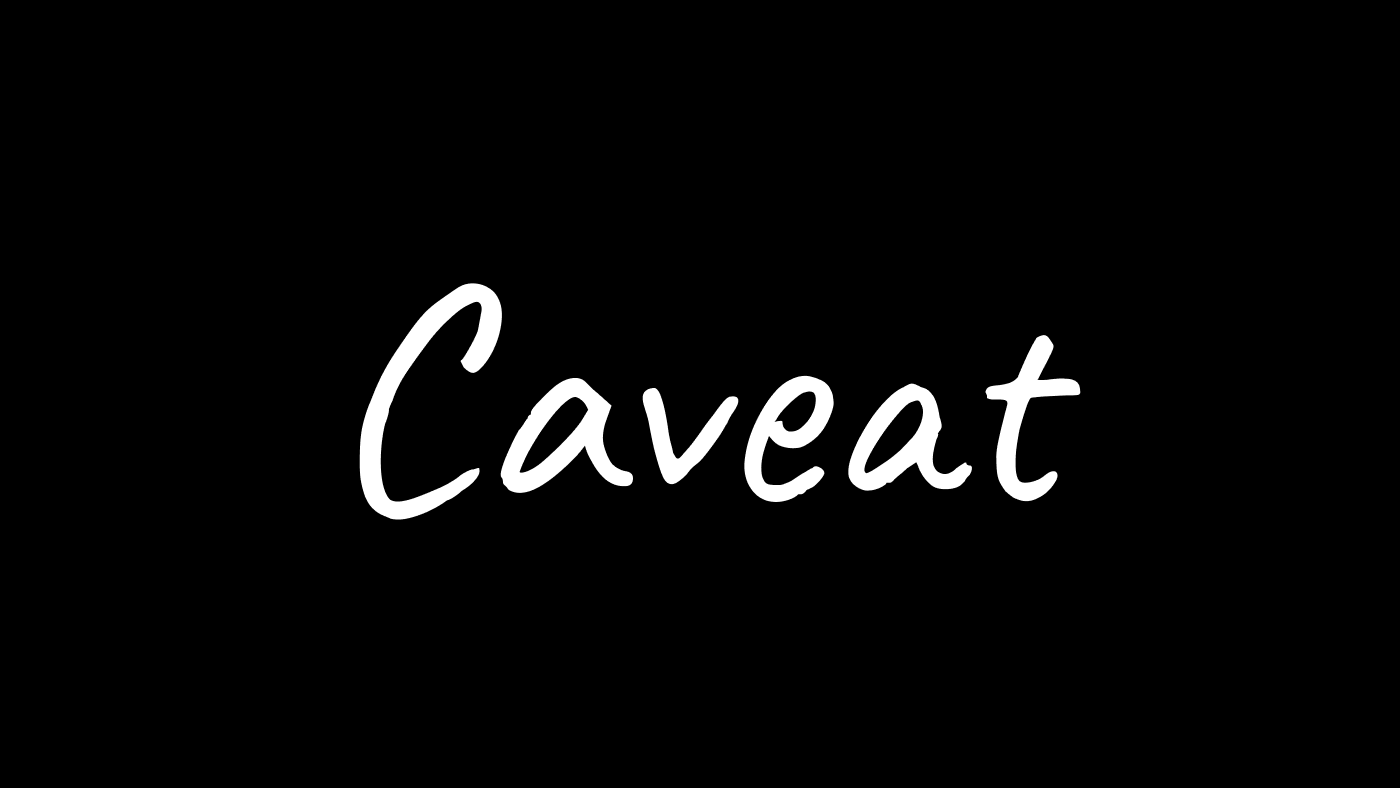
10 free unique handwriting fonts you need in your design toolkit
Achieve handwriting harmony with these 10 free handwriting fonts that deserve a spot in your design toolkit.
As you may already be aware, there is a wealth of free fonts out there (and handwriting fonts are no exception). However, it can be tricky to navigate through the plethora of fonts available. So, I've put together a list of my favourite free handwriting fonts. I gravitate towards handwriting fonts that look realistic, are well-made and a little quirky - and that's what you'll find in this list.
Good Dog
Good dog is a great free font with 100% free licensing. It's friendly and fun and one of the more realistic handwriting fonts. It has two styles - Good Dog Cool and Good Dog Plain (Good Dog Cool has little dots incorporated in the characters). There is also a new version (aptly called GoodDog New) available on Adobe Fonts.
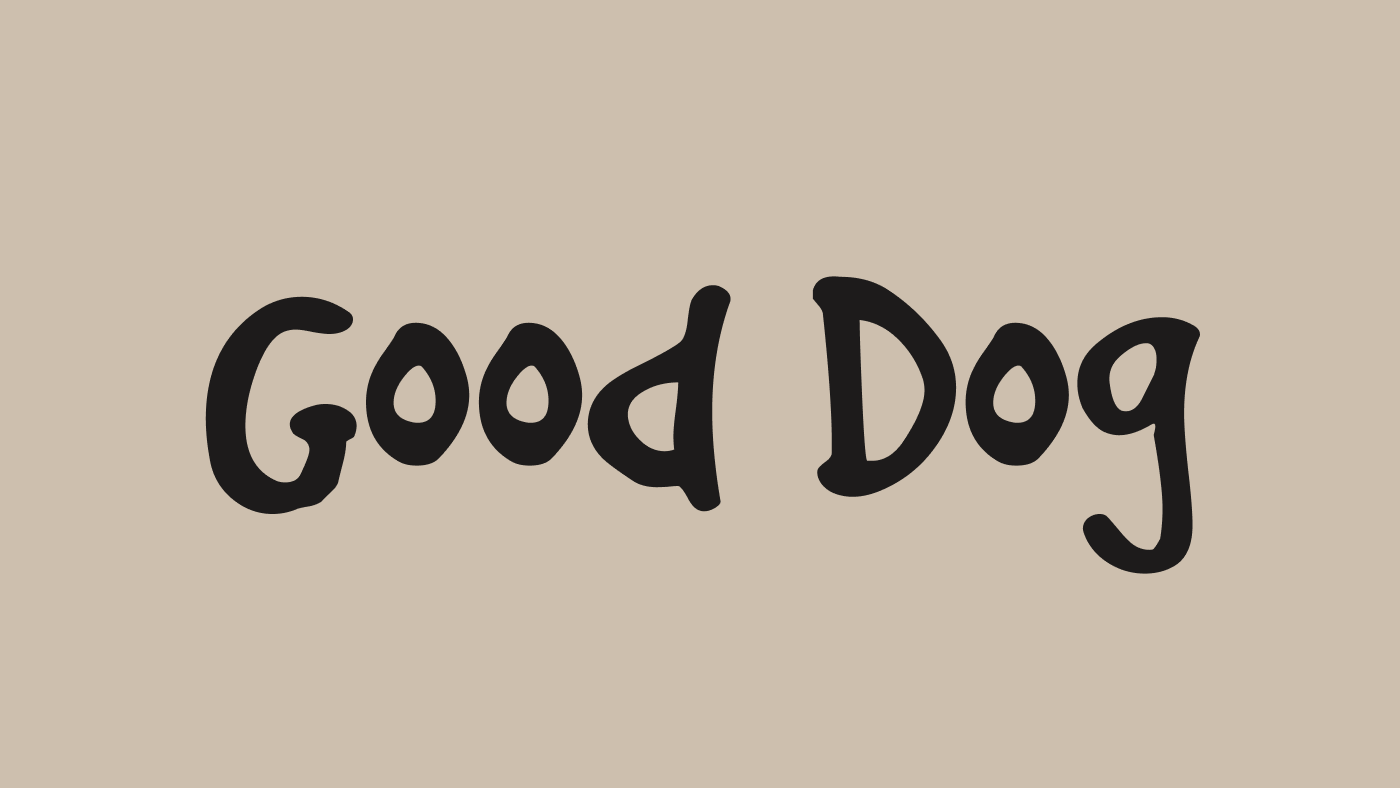
Jackson
I love this font. It's really fun, a little quirky and has so much character. It is free for personal use, but also has a full version available to buy.
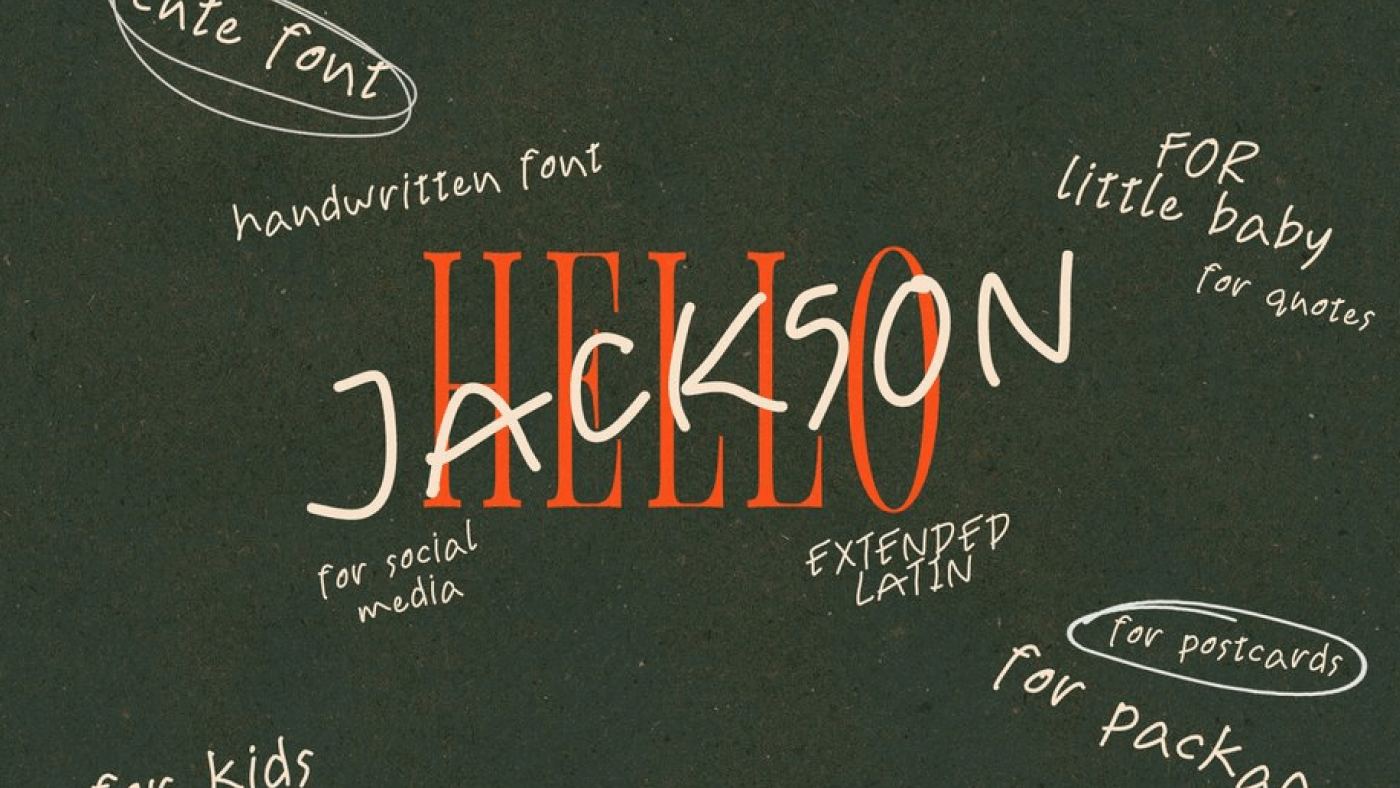
Bristol
Bristol is a chunky handwriting font that is 'based on Banksy felt pen handwriting in letter to Bridge Farm School' (as quoted by the author, Jovanny Lemonad). The collection is created by designers who have drawn these fonts and then allowed everyone to use, share, change and improve the fonts, free of charge.
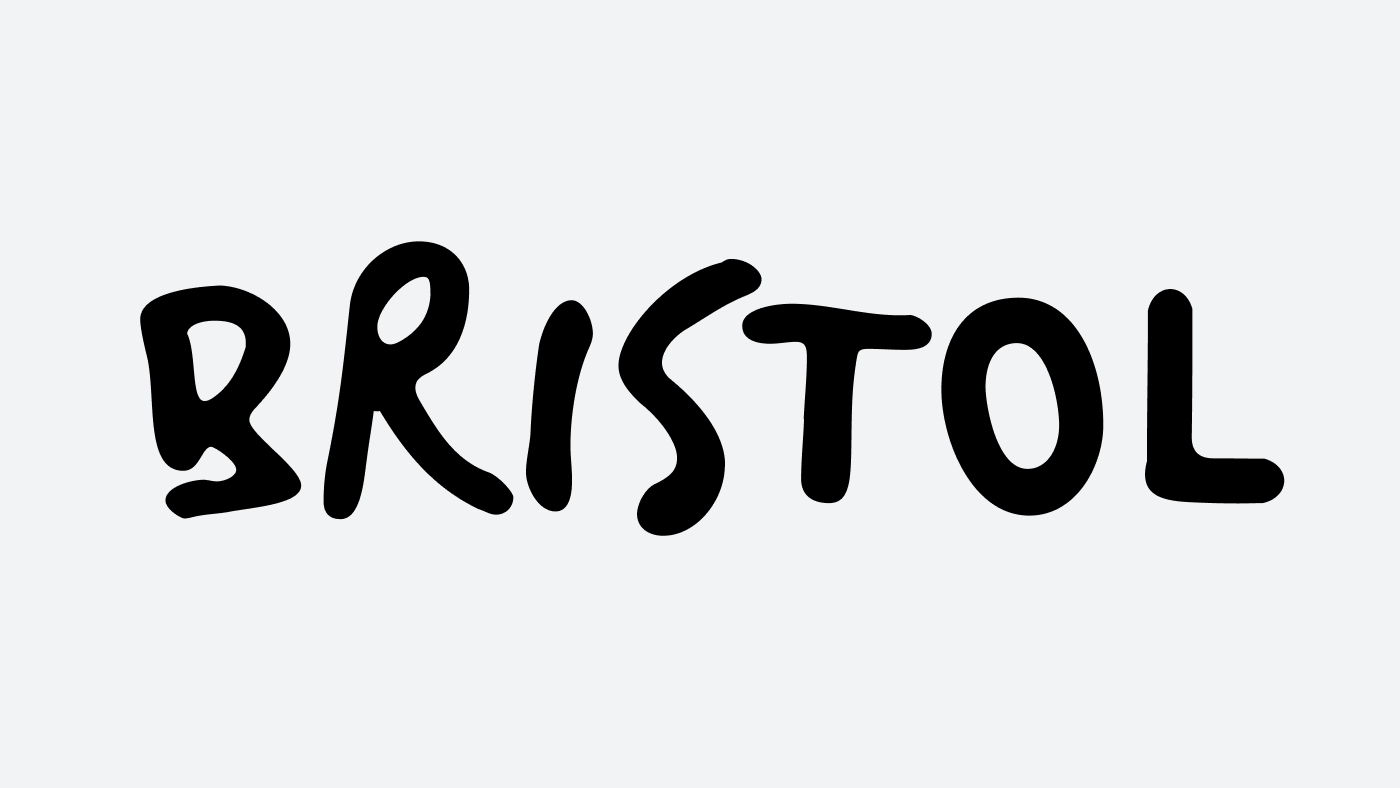
Lore
Lore is a handwriting font from your's truly, Typeheist. It's an all caps handwriting font based off my own handwriting. The demo is available for you to trial in your design projects (and you can buy the full version and all weights here too).
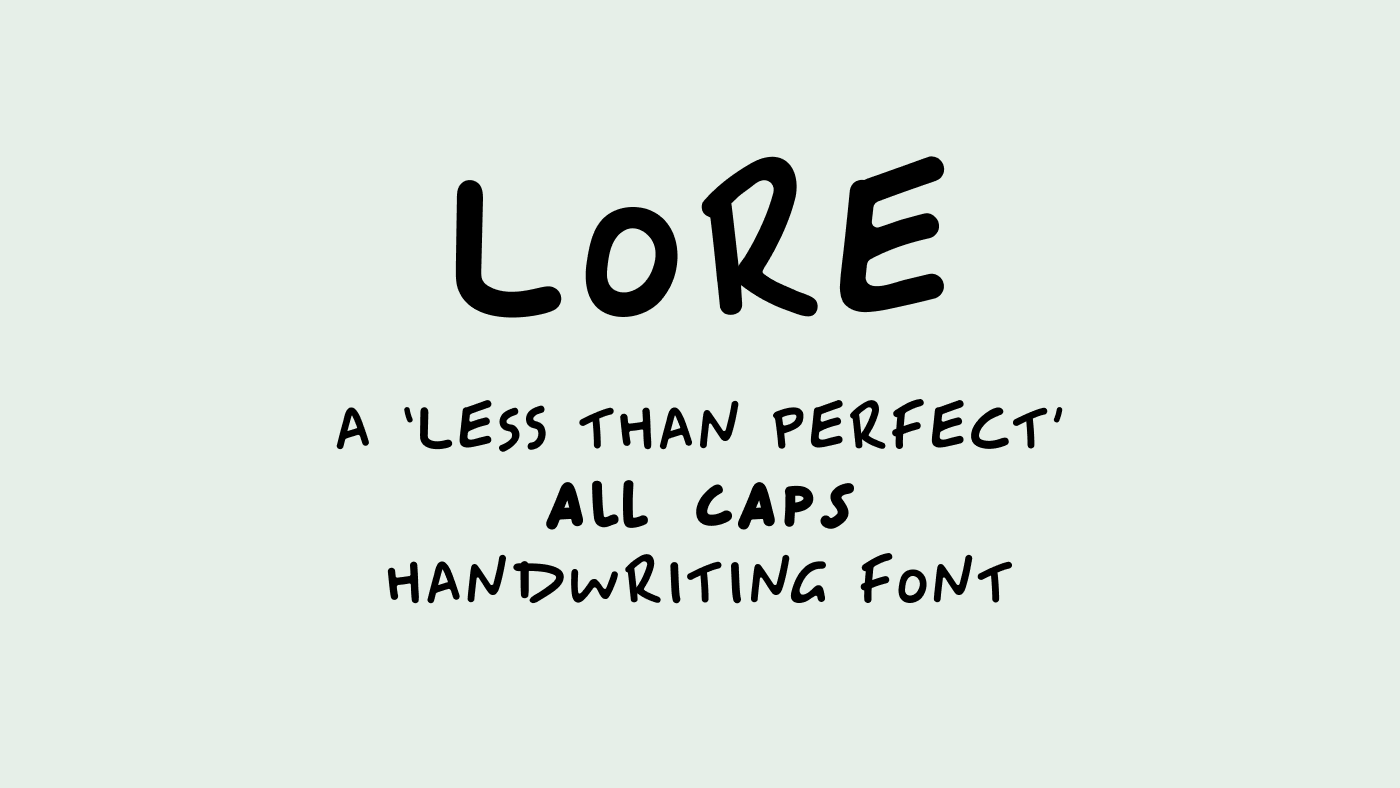
Tomatoes
Tomatoes is a smooth, curvy handwriting font with some nice round shapes (like a tomato?). The full font is available at billyargel.com.
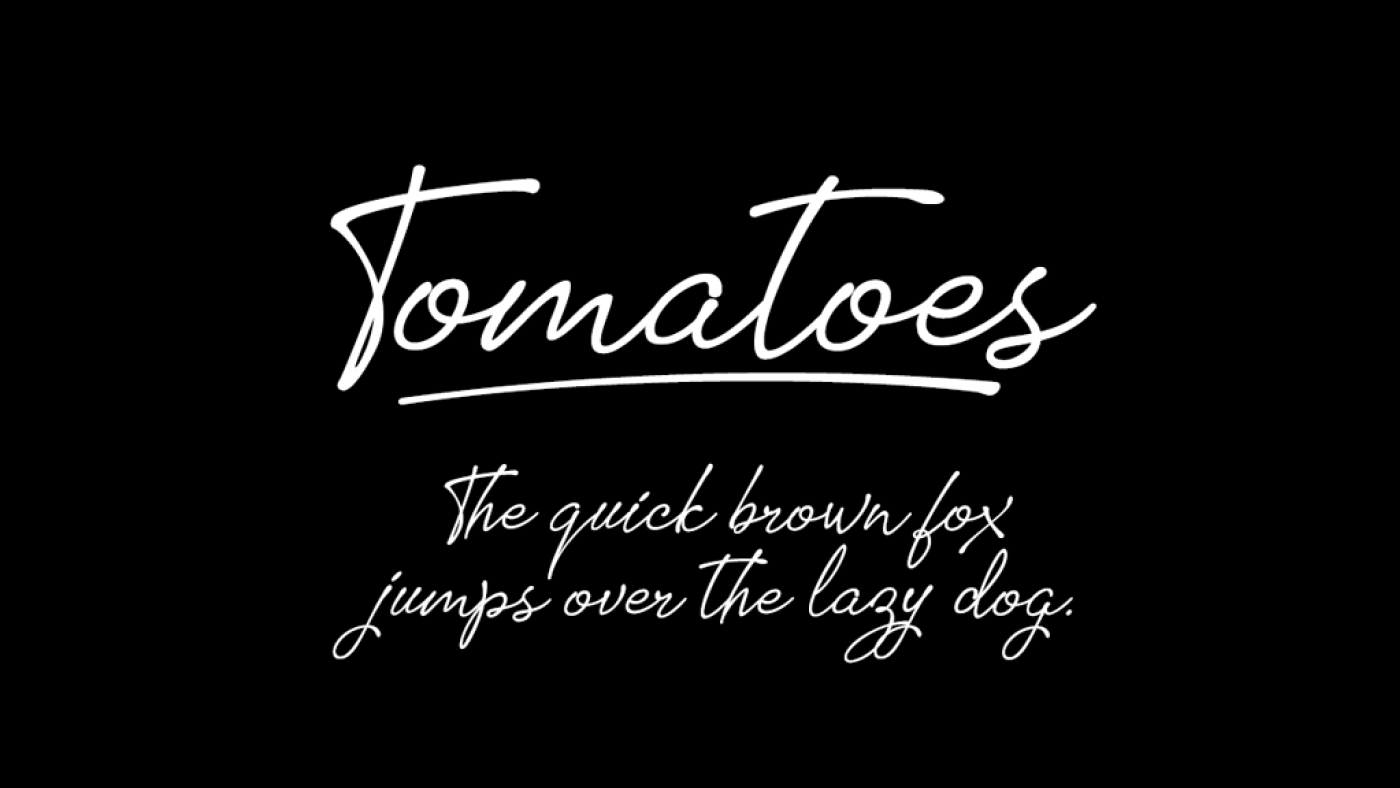
BRICK
Brick is a 'handwritten font inspired by my 4 month work vacation in NYC and the building tags and letter forms.' I love how organically the letter shapes fit together. The commercial license is available to buy too.
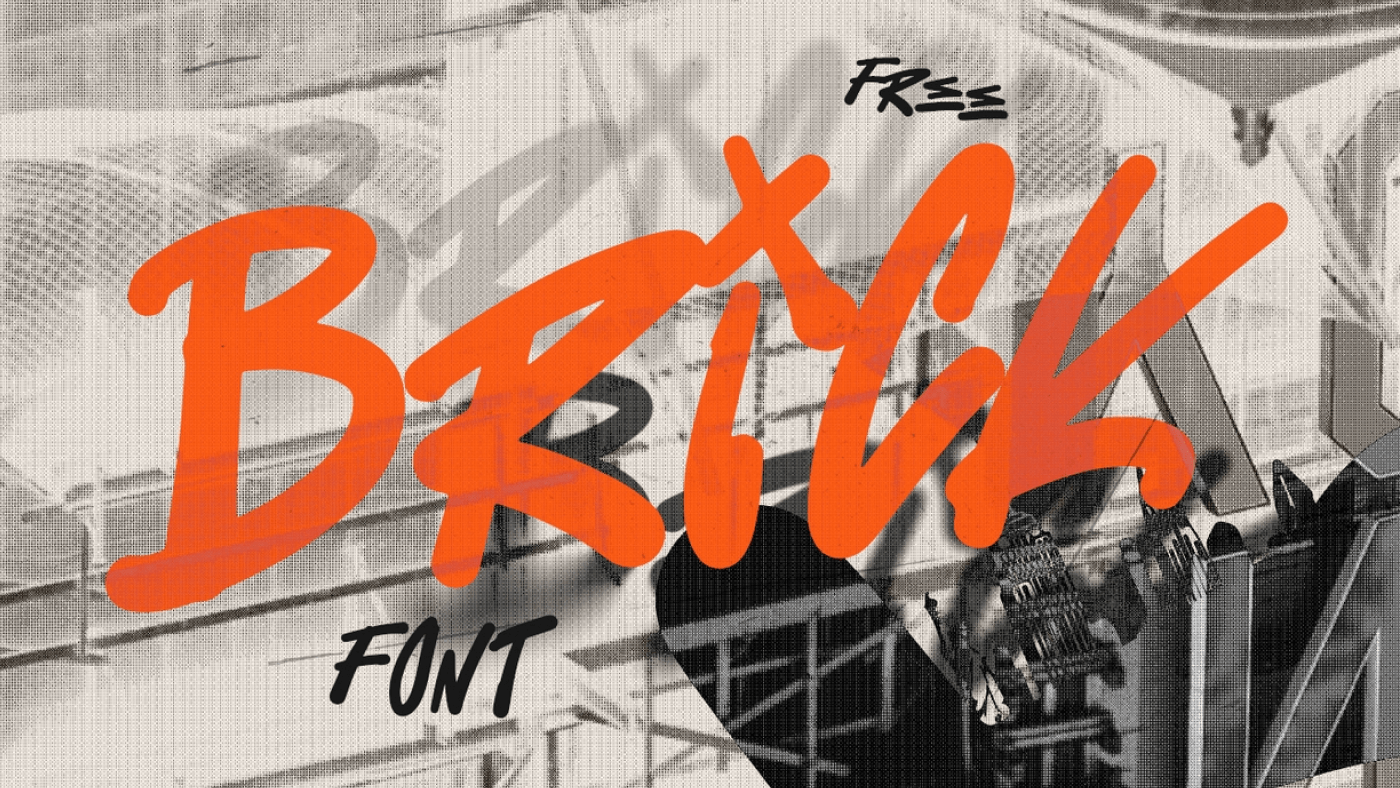
CHI
Named after the vital life force or energy that runs through all living being, Chi is a handwritten, bubbly typeface by Chloe Chan. I love it because it's friendly and fun and has a really great feel about it.
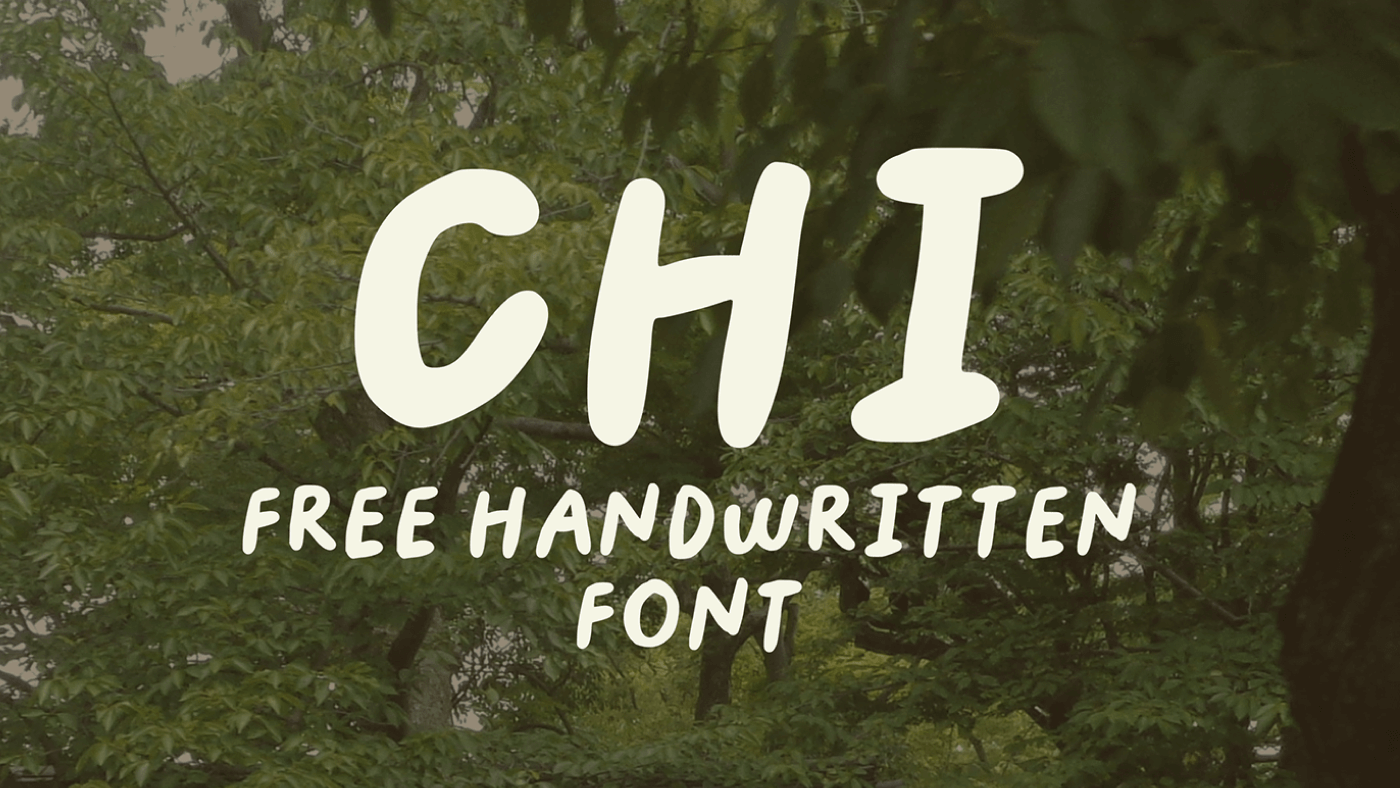
The Gloves
The Gloves is a quirky little font with some unique characters that fit in amongst others. I love its textured edges and slightly slanted shapes.
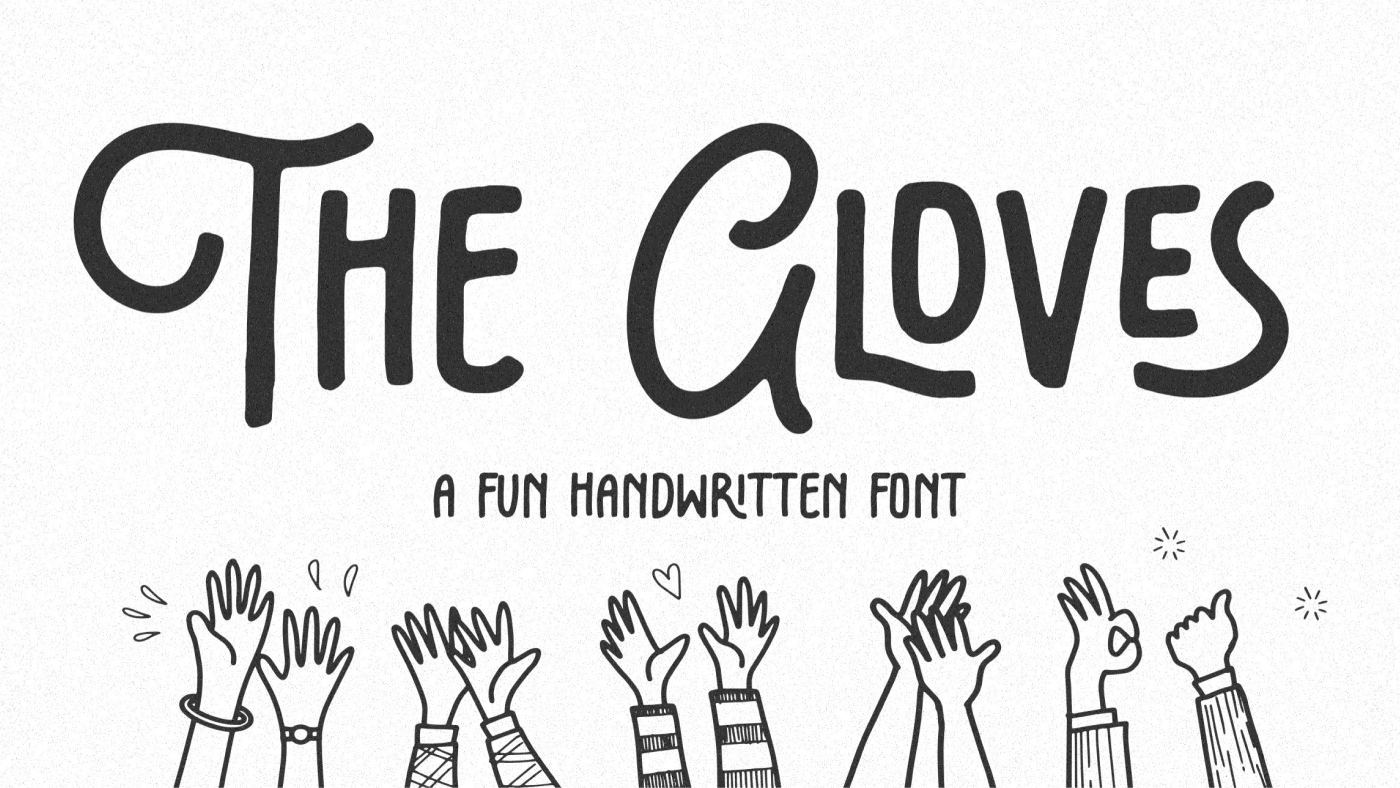
Malina Script
Malina is an sophistated, elongated script font with a nice flow about it. It looks lovely when used for headings, quotes or with imagery.
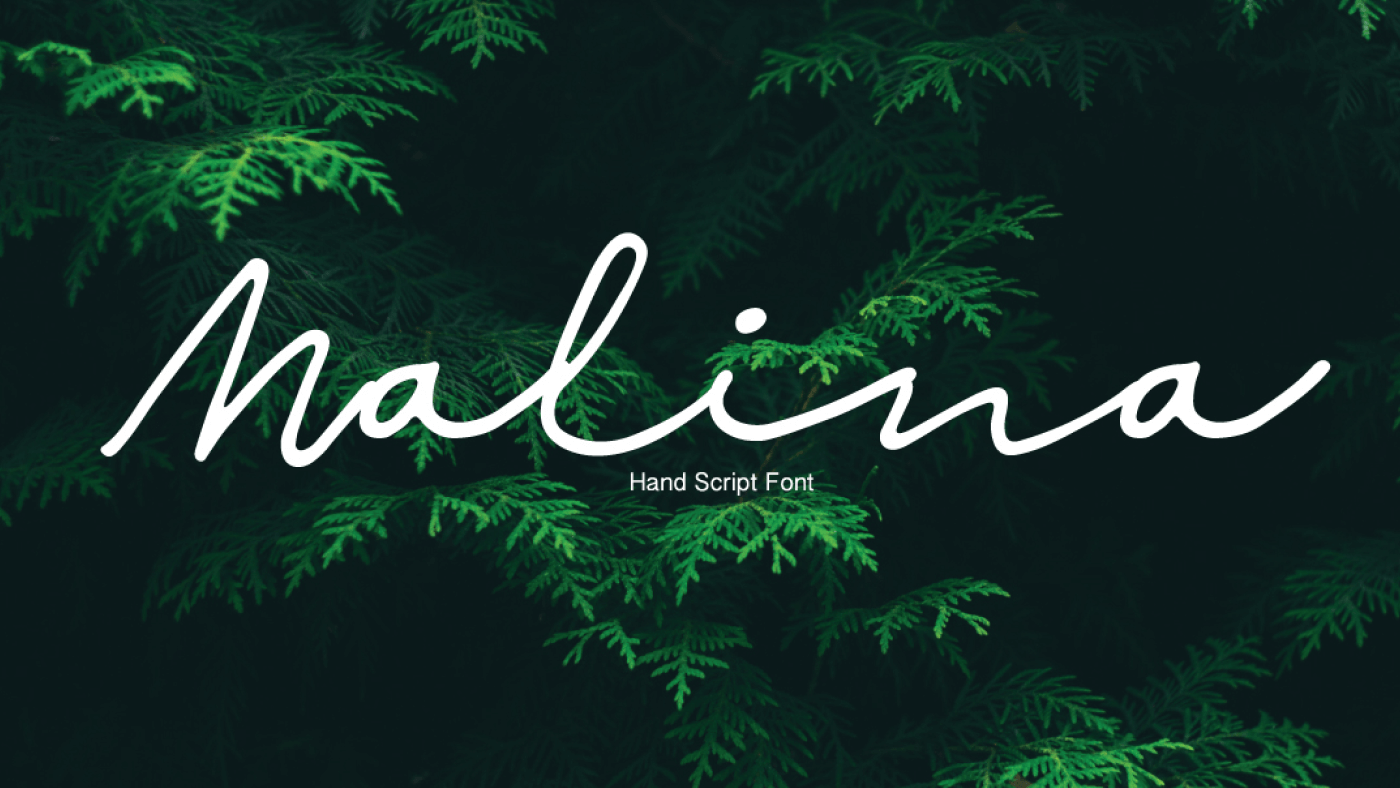
Caveat
A Google Fonts special, Caveat is a handwriting type family designed by Pablo Impallari. It is designed for both short annotations and body text usage. If you want something a little more artistic, check out Caveat Brush.